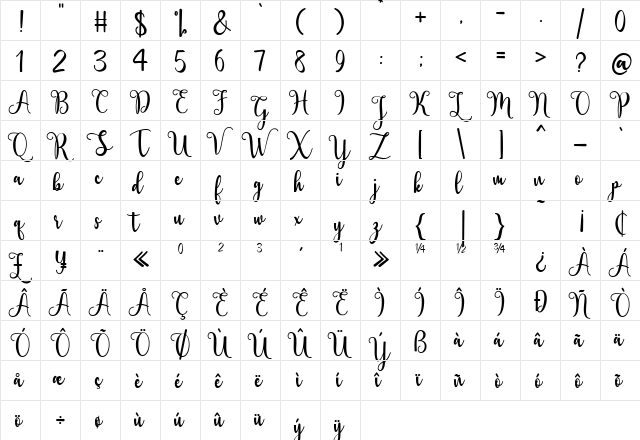
Berlin Script Regular
Design Context for Berlin Script Typeface
Berlin Script flows with the natural rhythm of handwritten lettering, making it ideal for designs that call for warmth and personal expression.
Font Pairing: Combine Berlin Script with a simple geometric sans for maximum contrast — the tension between flowing curves and clean structure is a classic typographic pairing.
Pro Tip: Pair Berlin Script with a clean sans-serif for supporting text. The contrast between fluid script and geometric structure creates an elegant typographic hierarchy.